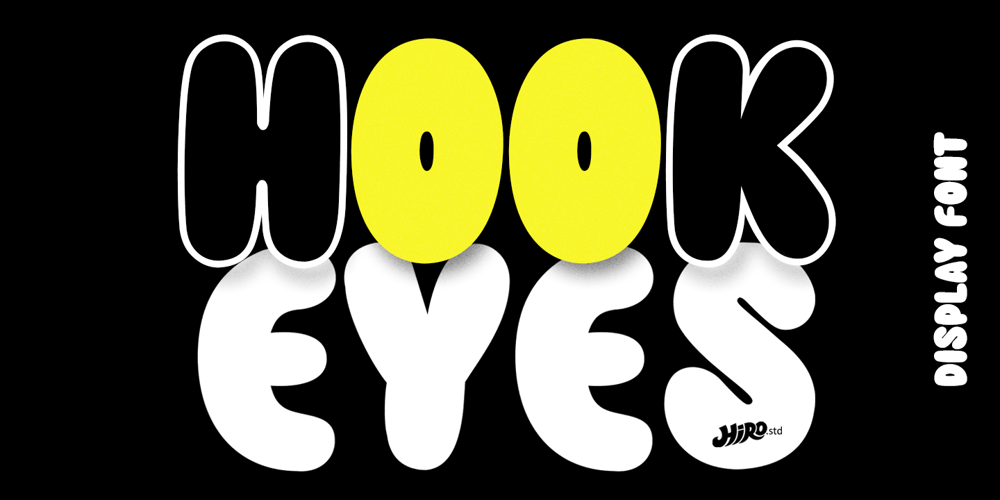
Hook Eyes Font Family was designed by Chairul Ashar and published by HIRO.std. Hook Eyes contains 2 styles and family package options. Hook Eyes is Display Font This font describes about funny, dynamic, selling, sale, humanist, easy going, and easy to use. FEATURES- Uppercase letters – Numbering and Punctuations- PUA Encoded Characters- Multilingual Support- Works on PC or Mac USEHook Eyes works great in titles, sale campaign, product packaging, brand, poster, print, etc. Enjoy using!Thanks. HIRO.std